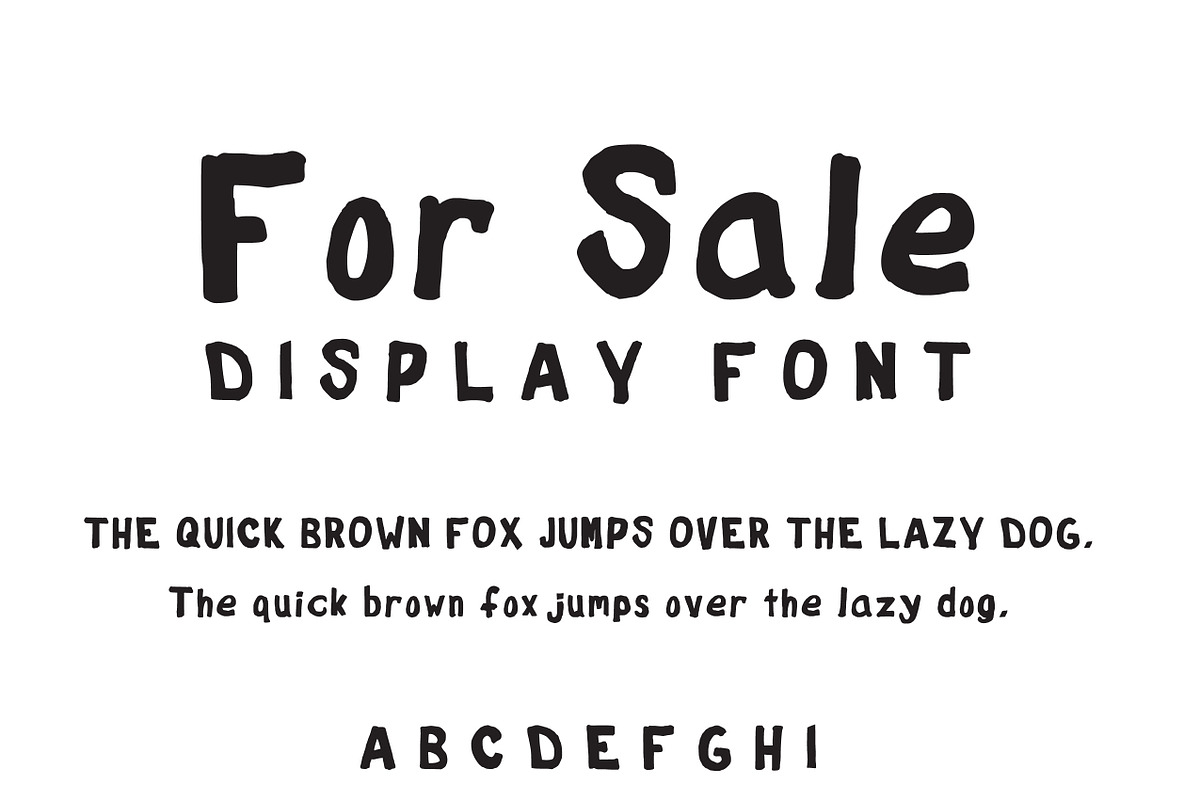
For Sale - Hand-drawn Display Font
Check out the unique 75 character display font - FOR SALE. Inspired by hand-written for sale signs used in advertising. Great for posters, too!
For Sale - Hand-drawn Display Font by Shadow fits naturally into Branding, posters, packaging, typography.